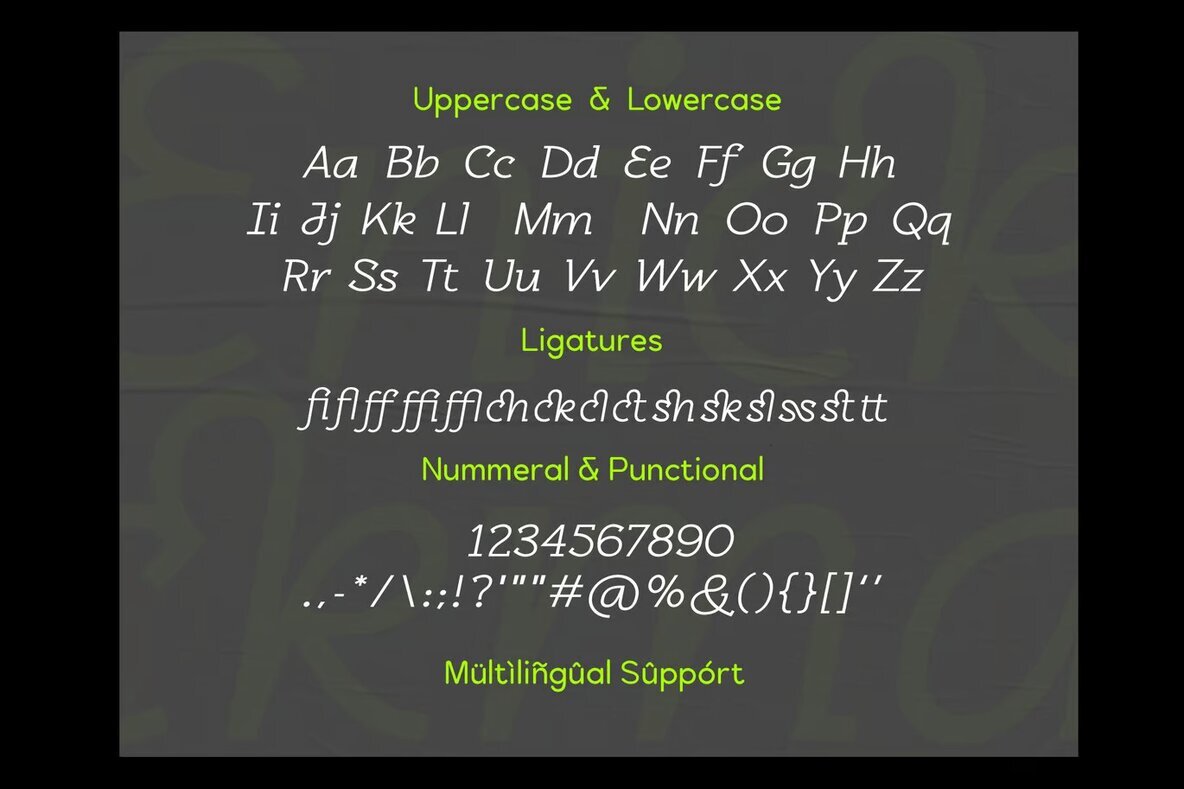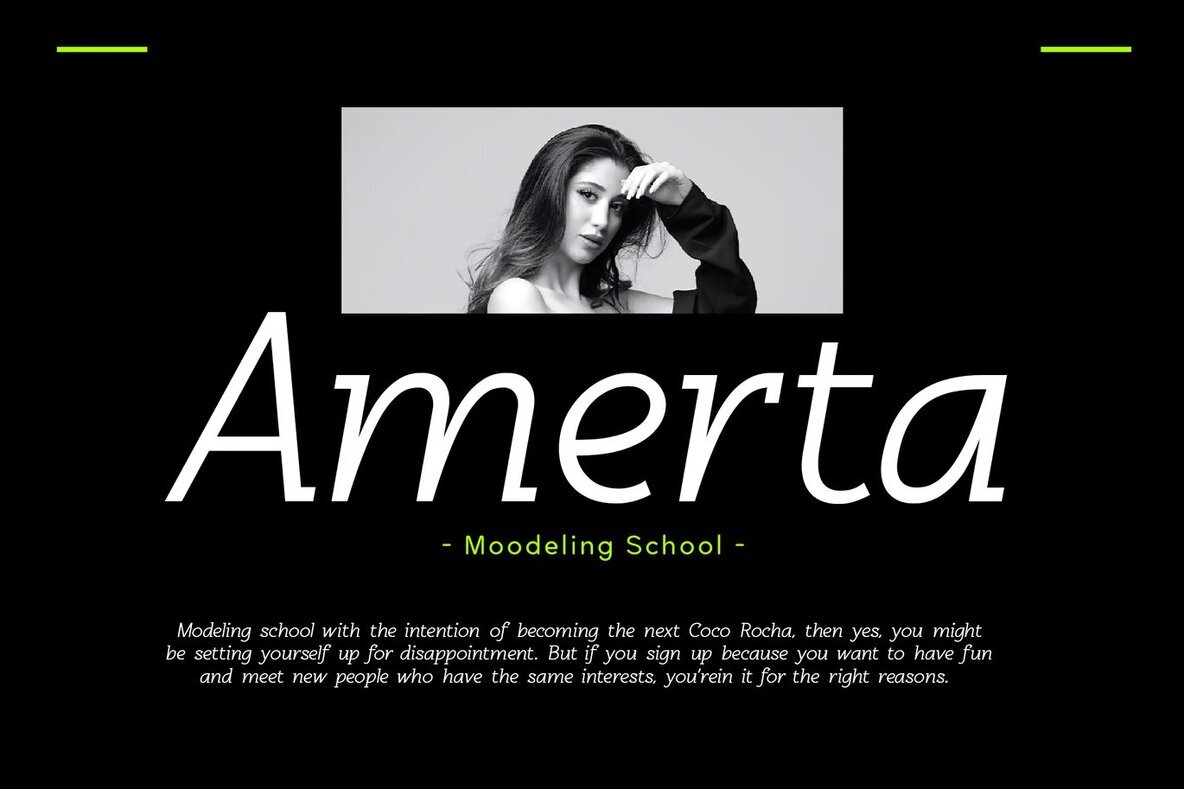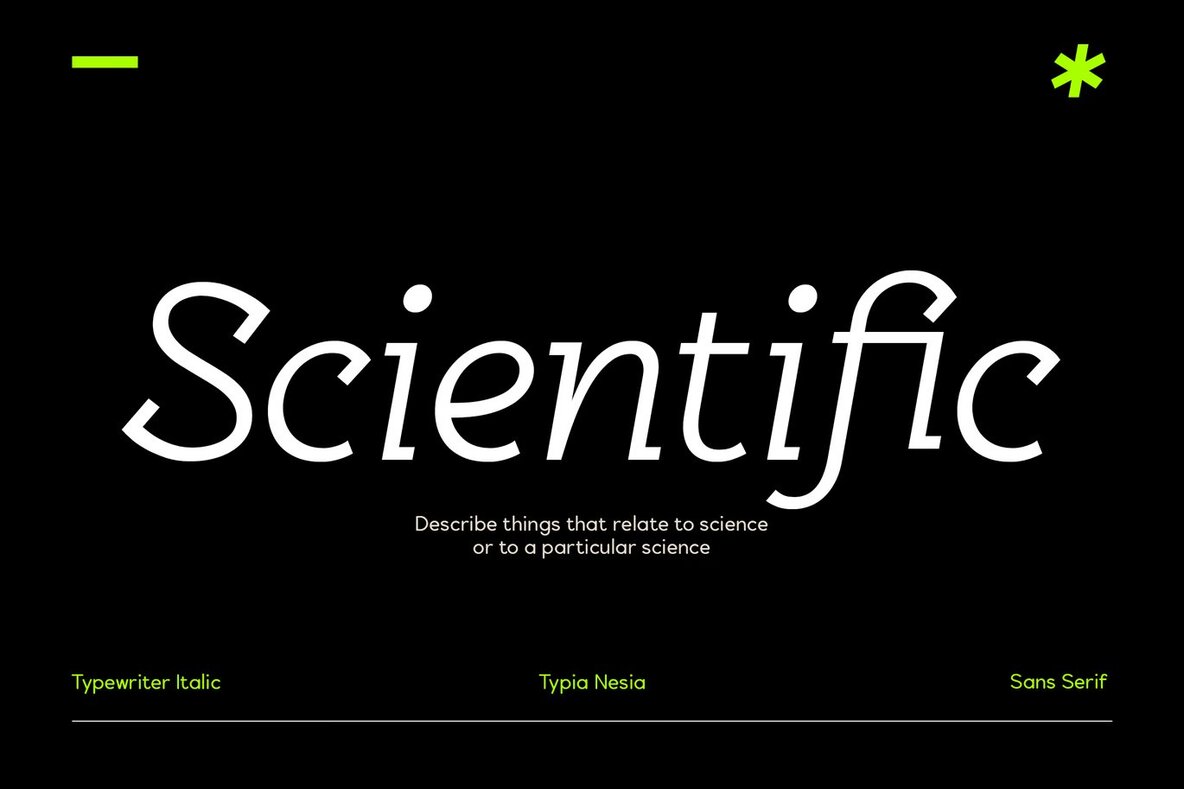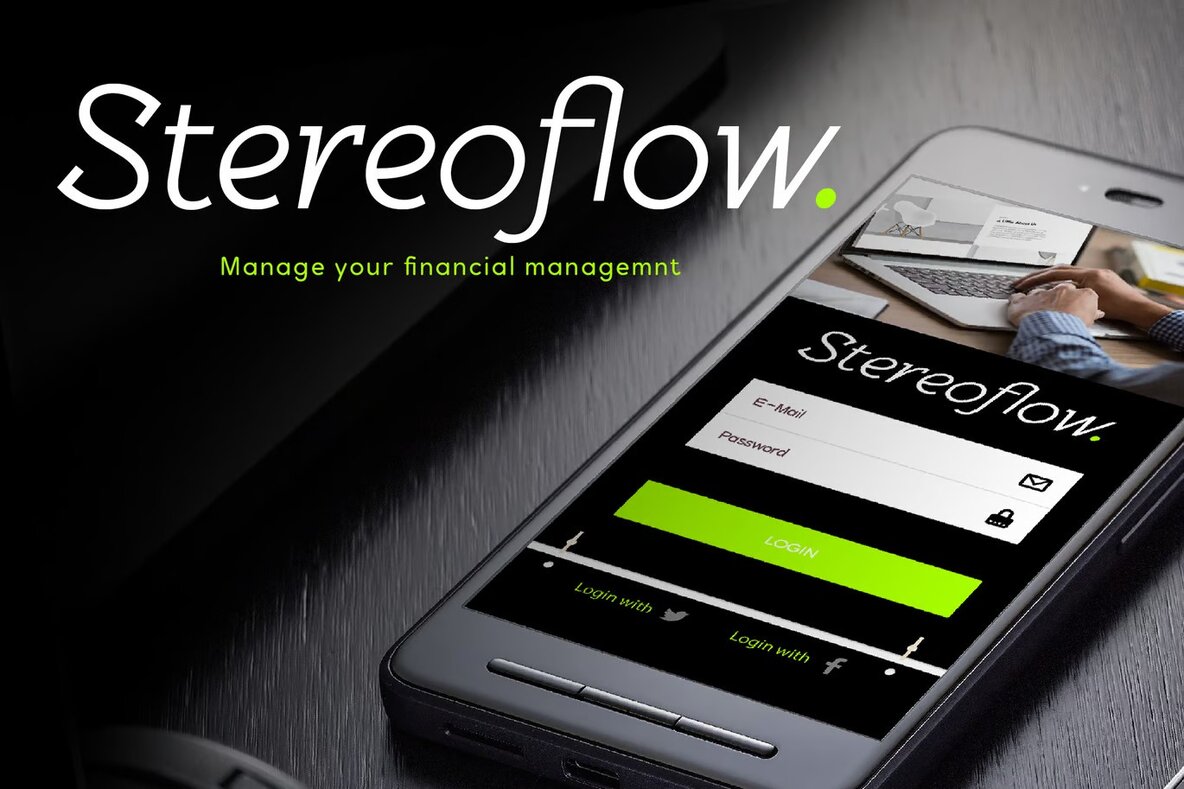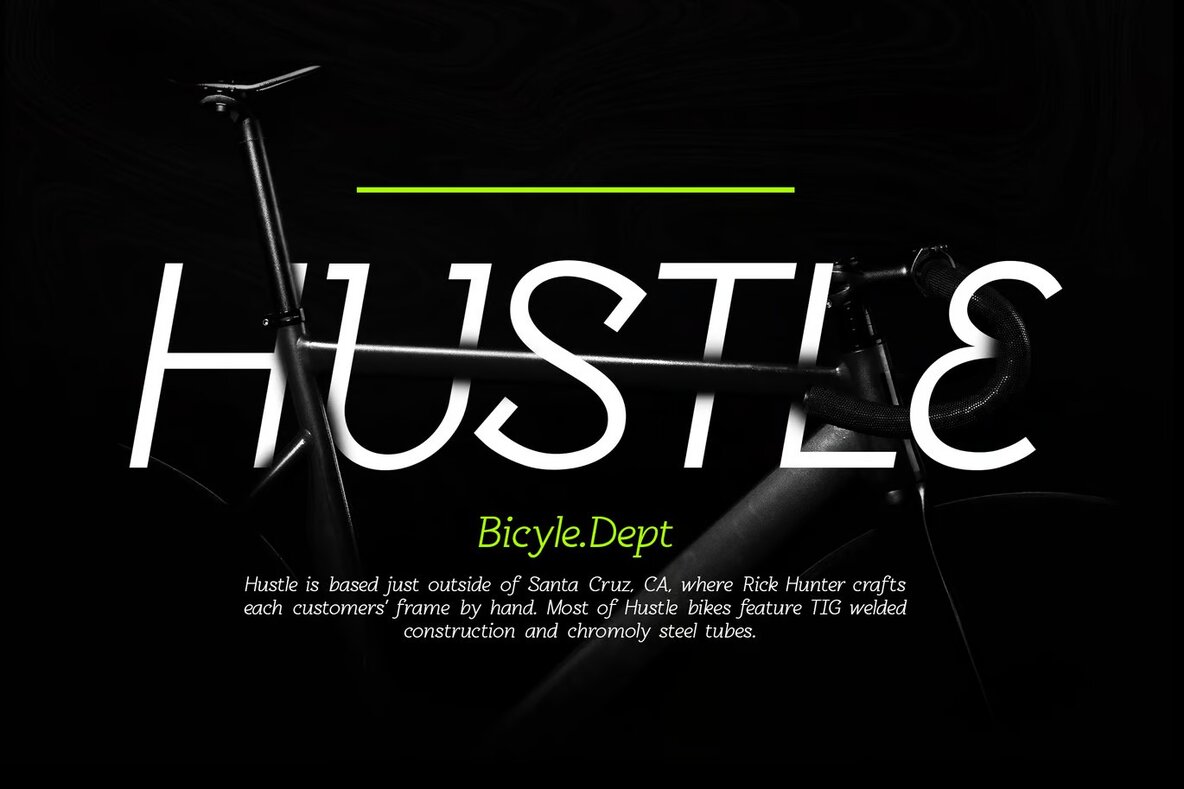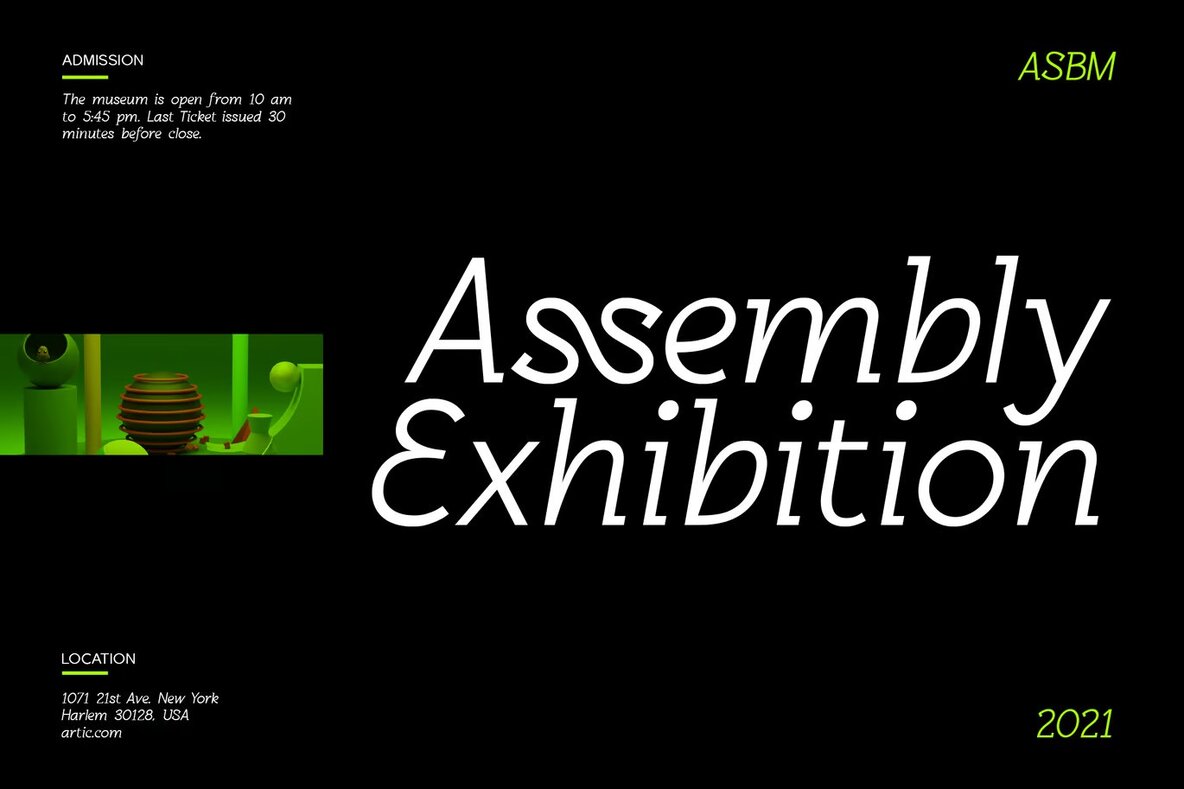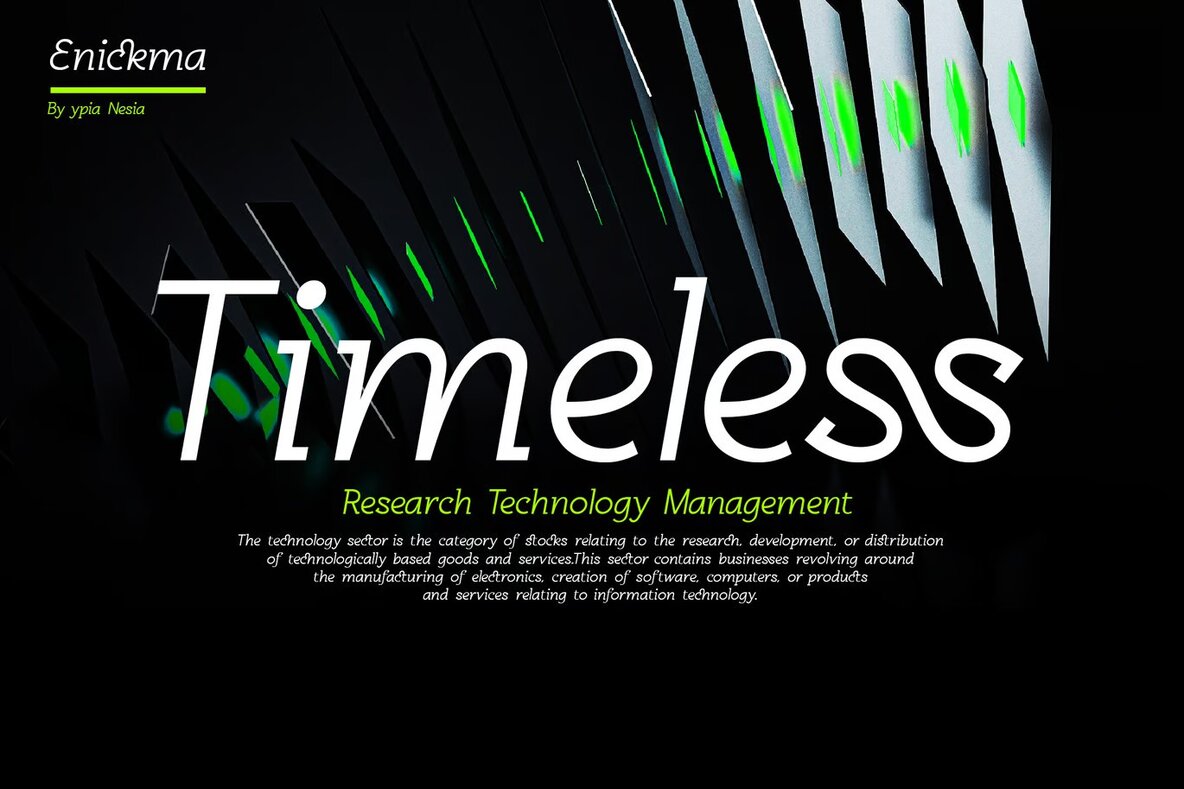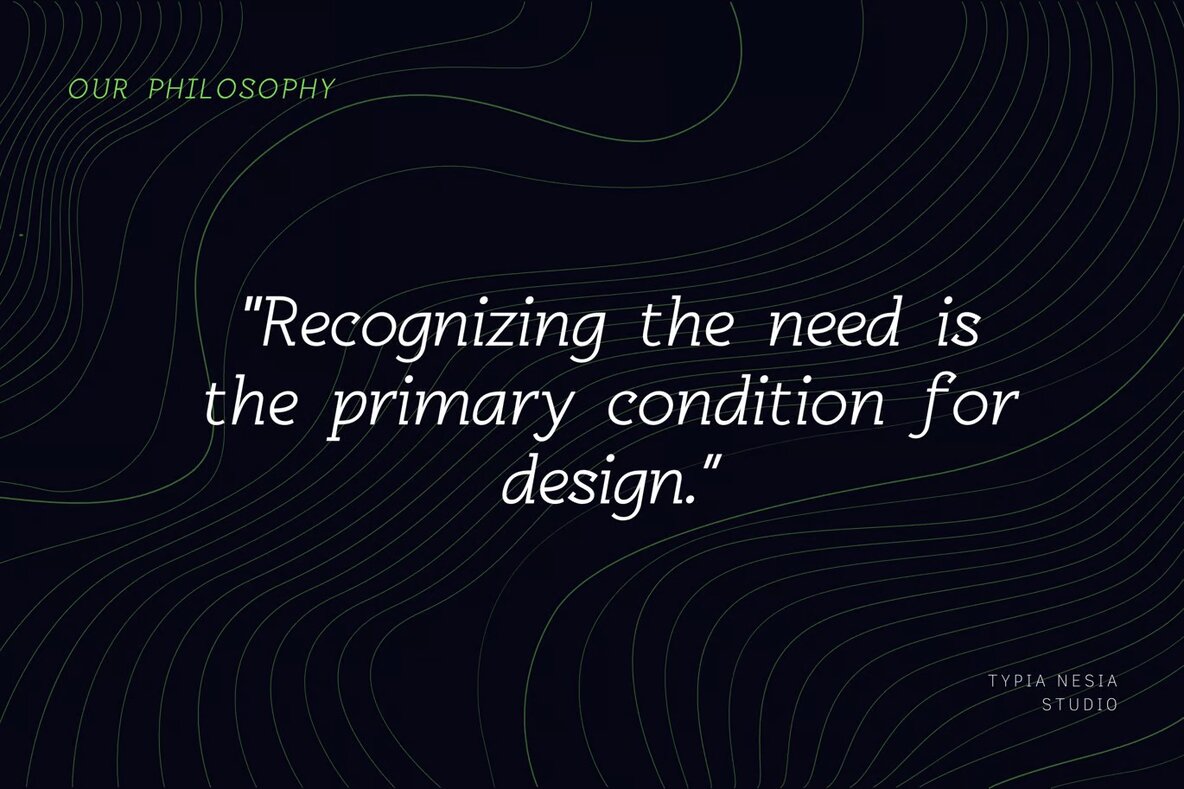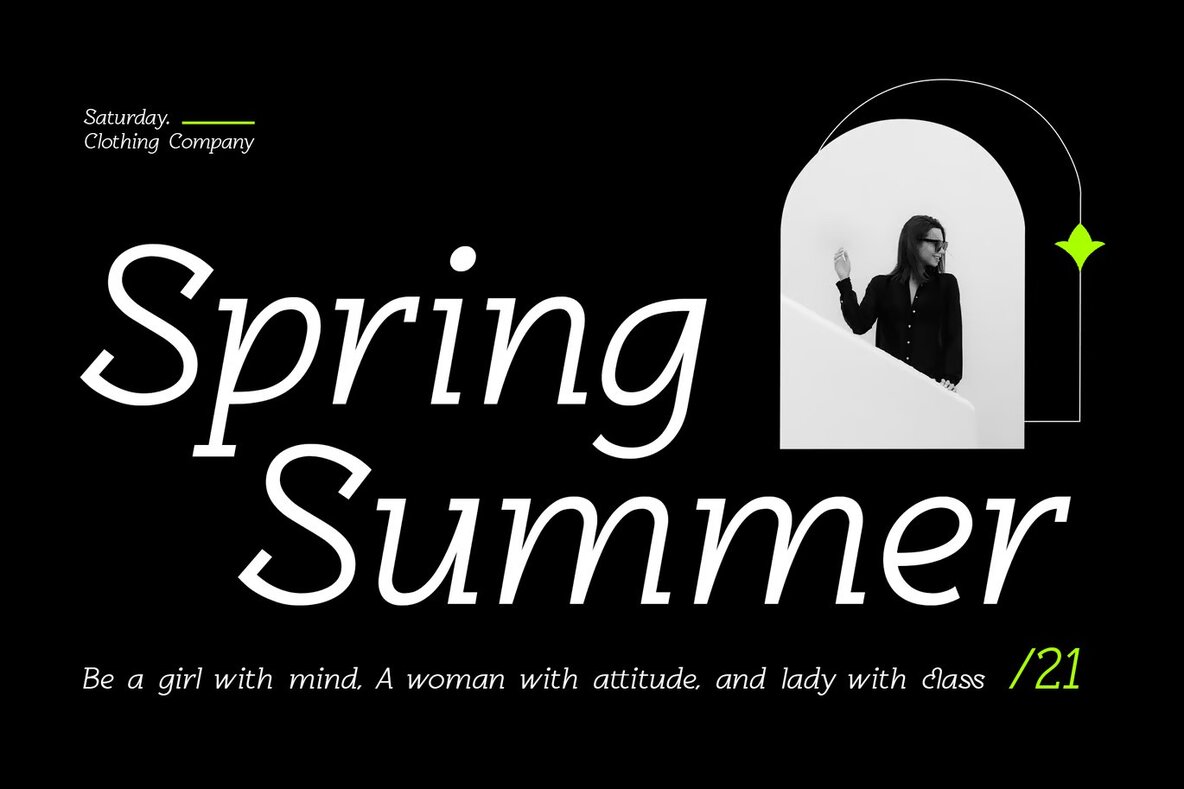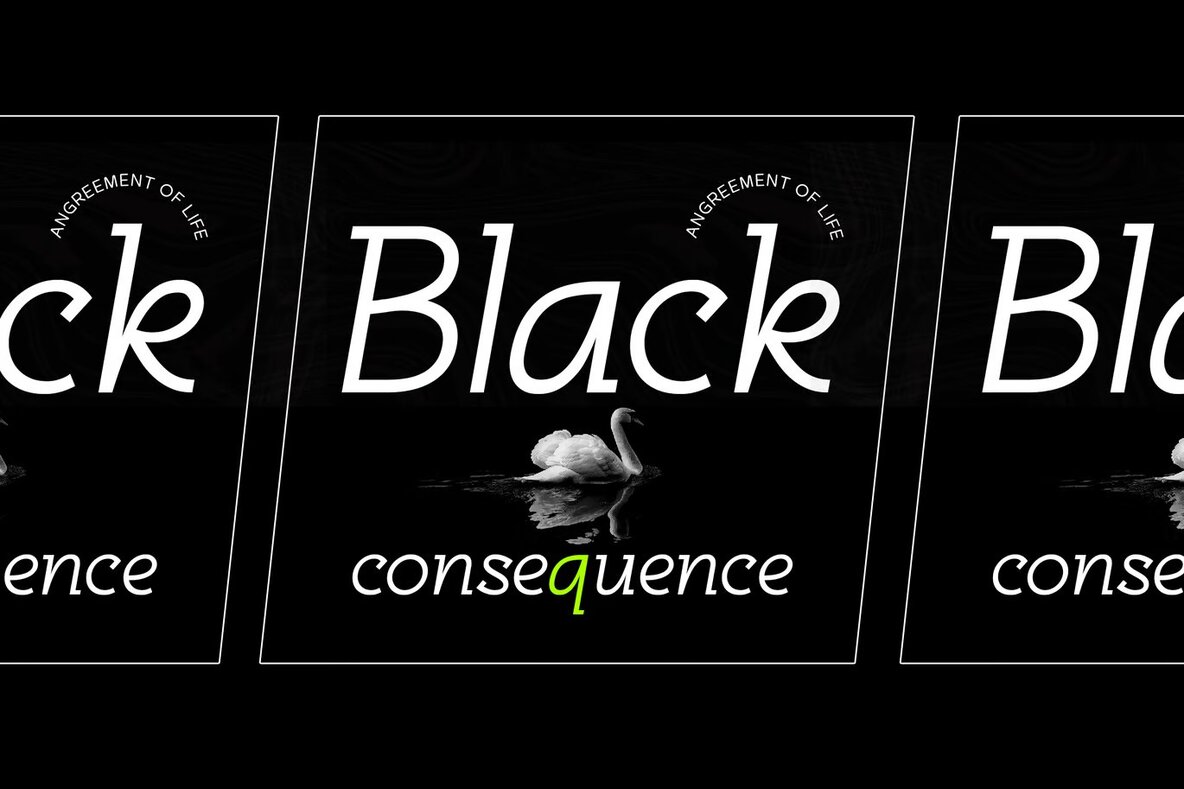
Enickma Font
Enickma Regular
Enickma is a modern italic sans serif font designed to give a futuristic edge to your projects. It seamlessly fits diverse applications such as logo branding, editorial layouts, and stationery design. Its tech-inspired style lends itself well to esports, 80s retro themes, and the game industry. Whether you are working on a techno or gadget brand, Enickma delivers a sleek, contemporary look.
Ideal for creating digital music posters and advertising content, this font enhances the visual appeal of apps and startup designs. It also adds style to art quotes, home decor, and book covers. Perfect for sporting events or any special occasion, Enickma captures the essence of modern design, making it a versatile choice for creative professionals.